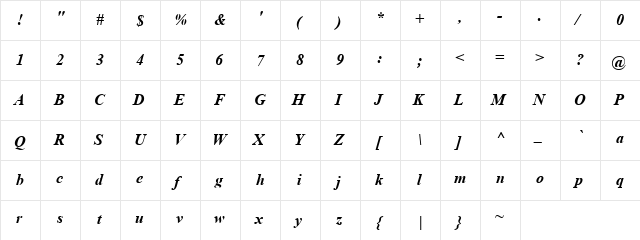
Angsana New Bold Italic
Design Context for Angsana New Typeface
Angsana New is a composed and adaptable typeface that performs quietly and consistently across a wide range of design contexts. The slanted form adds forward momentum and visual energy. Its bold stroke weight gives it real presence on the page.
Pro Tip: Try Angsana New for annotation and caption copy alongside an upright companion — the contrast in angle creates a dynamic but ordered typographic system.